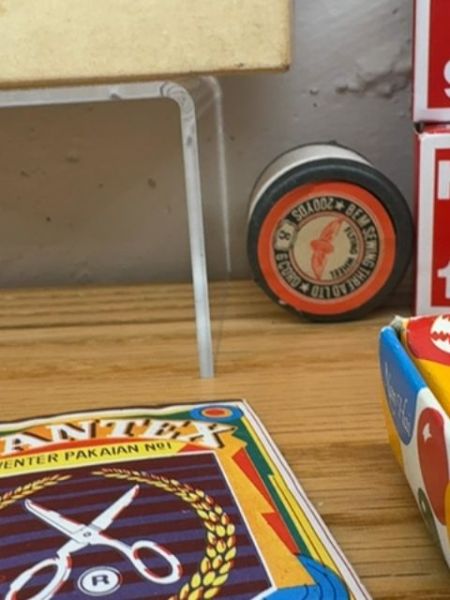
Sewing Needles
This product is a set of sewing needles, used for hand-sewing garments and fabric.
The typography on the packaging uses a bold, sans-serif font for the product name, making it easily legible. The typeface's clean lines and contemporary style convey a sense of reliability and modernity.
The packaging features a vibrant design with multiple colors and geometric patterns. It prominently displays scissors in the center, framed by wheat motifs, symbolizing precision and craftsmanship.